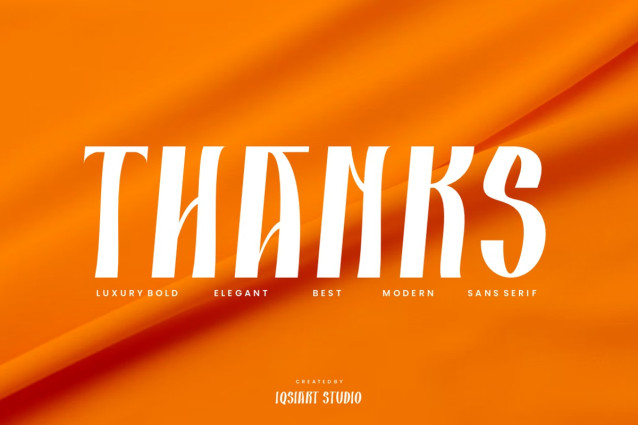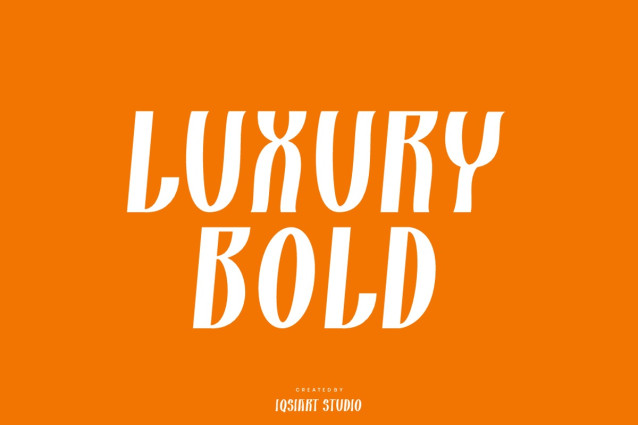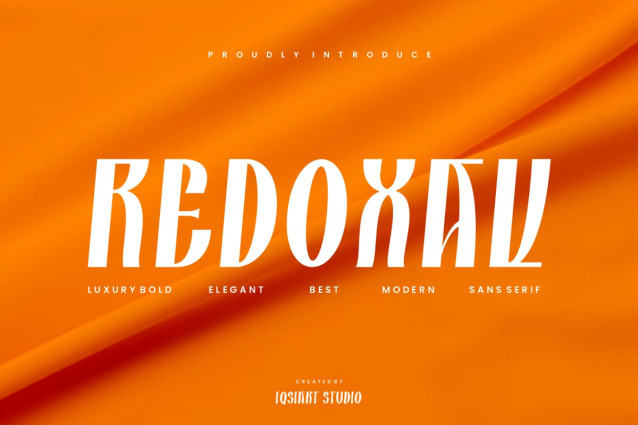
Redoxav Font
Redoxav Font is a best and authentic display font. This font can be used for your various needs. We provide various themes and font styles. visit our profile to get a wide variety of themes and different font styles you need.